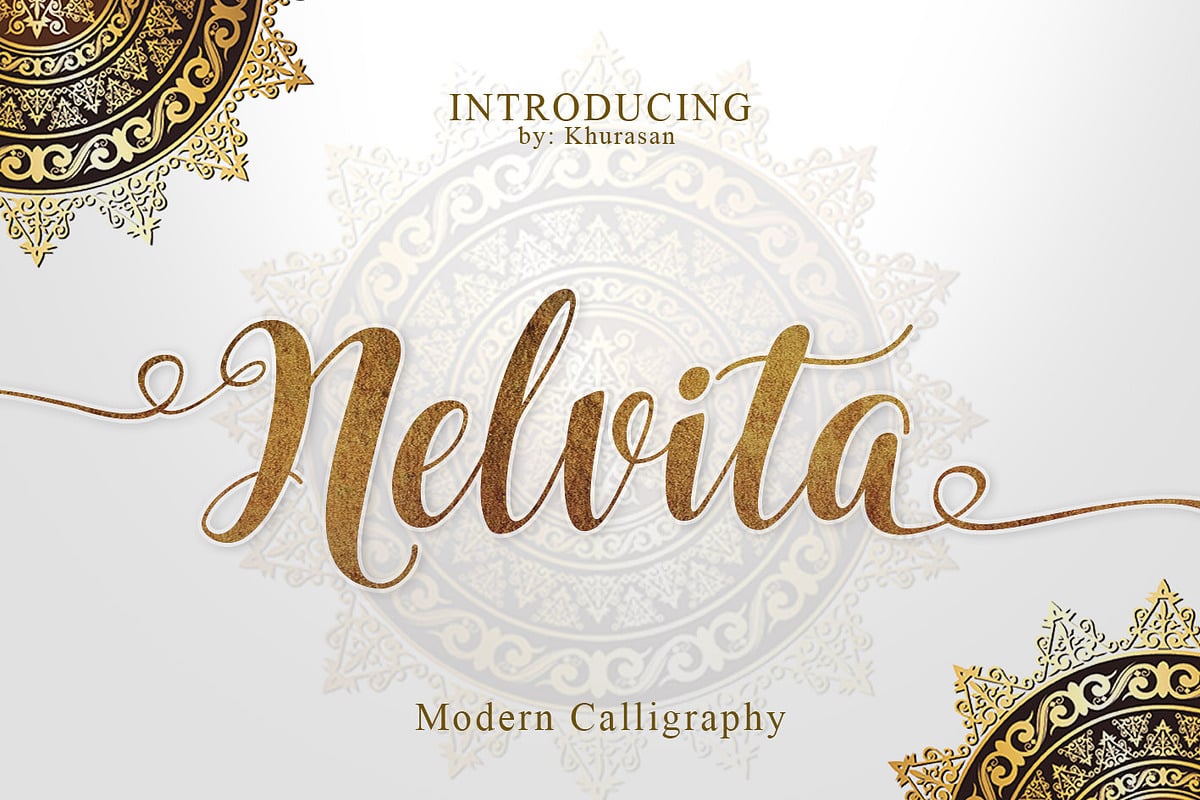
Nelvita Script (Duo Font + Extra)
Create stunning designs with Nelvita Script, a beautifully handcrafted modern calligraphy font perfect for elegant branding and romantic projects. This fresh script typeface brings handmade charm to your creative work, making it ideal for logos, branding materials, greeting cards, signatures, posters, and any design where you want to add a touch of elegance. Features: Uppercase and lowercase characters Numerals and punctuation PUA unicode support (specially coded fonts) Stylistic alternates for ...